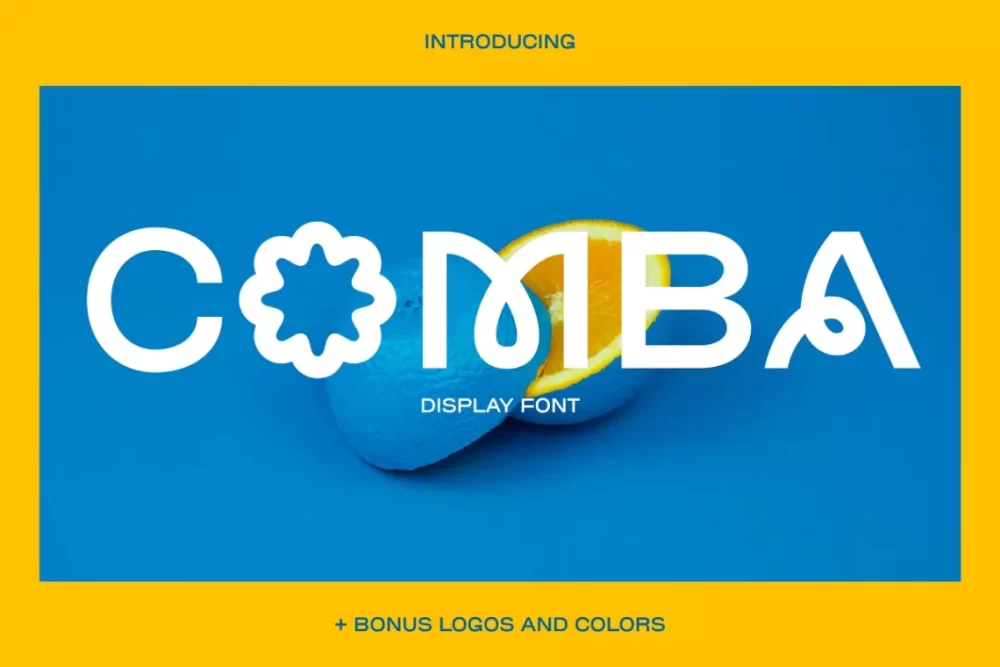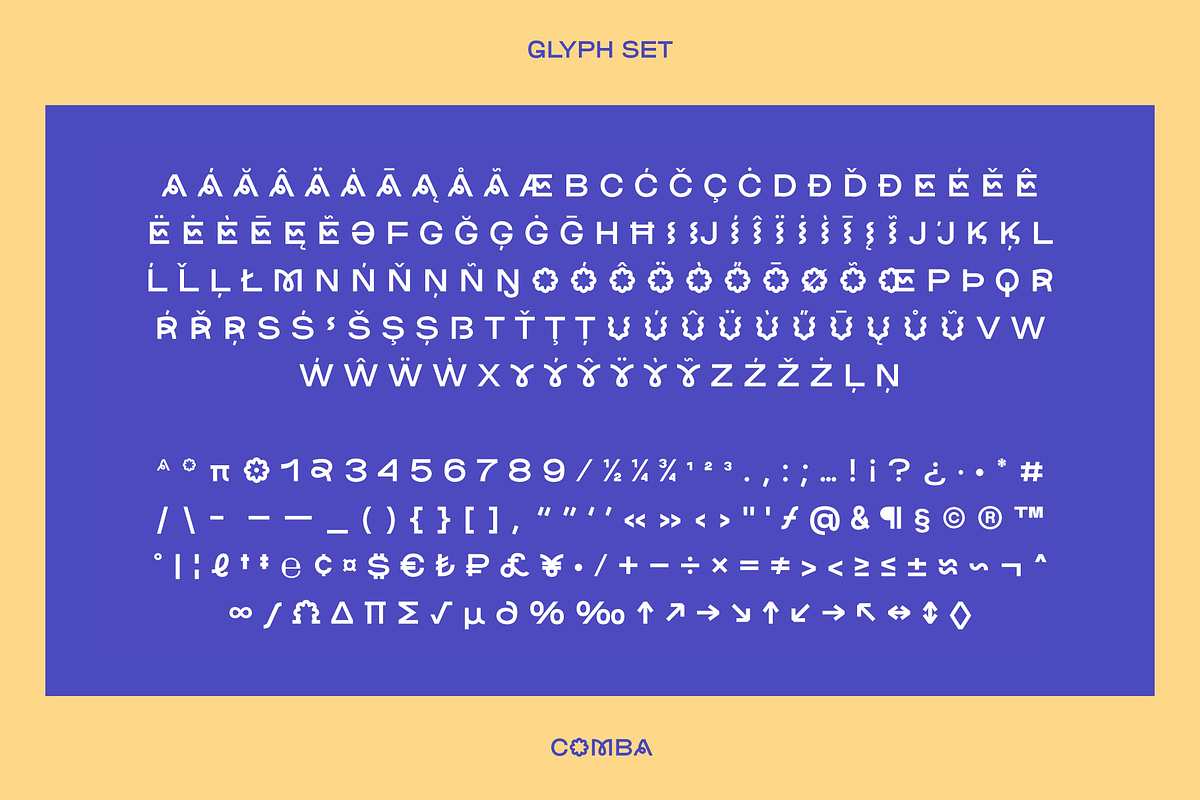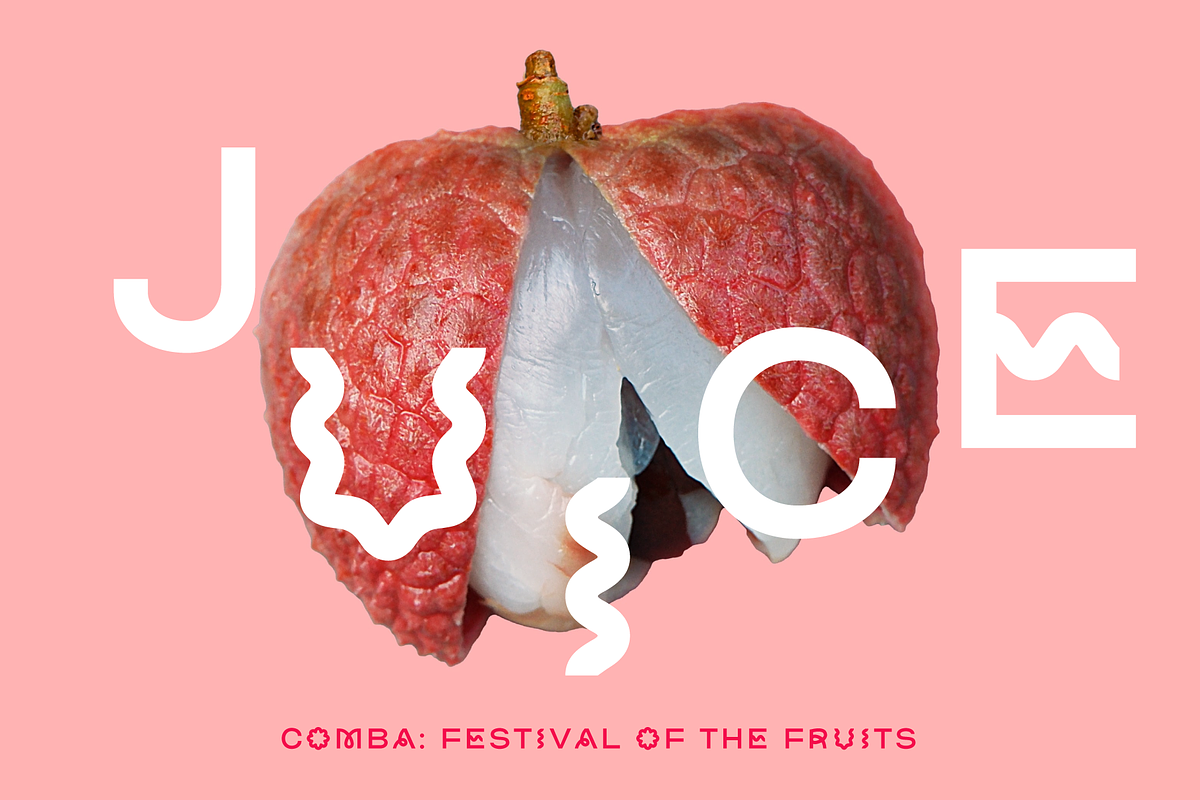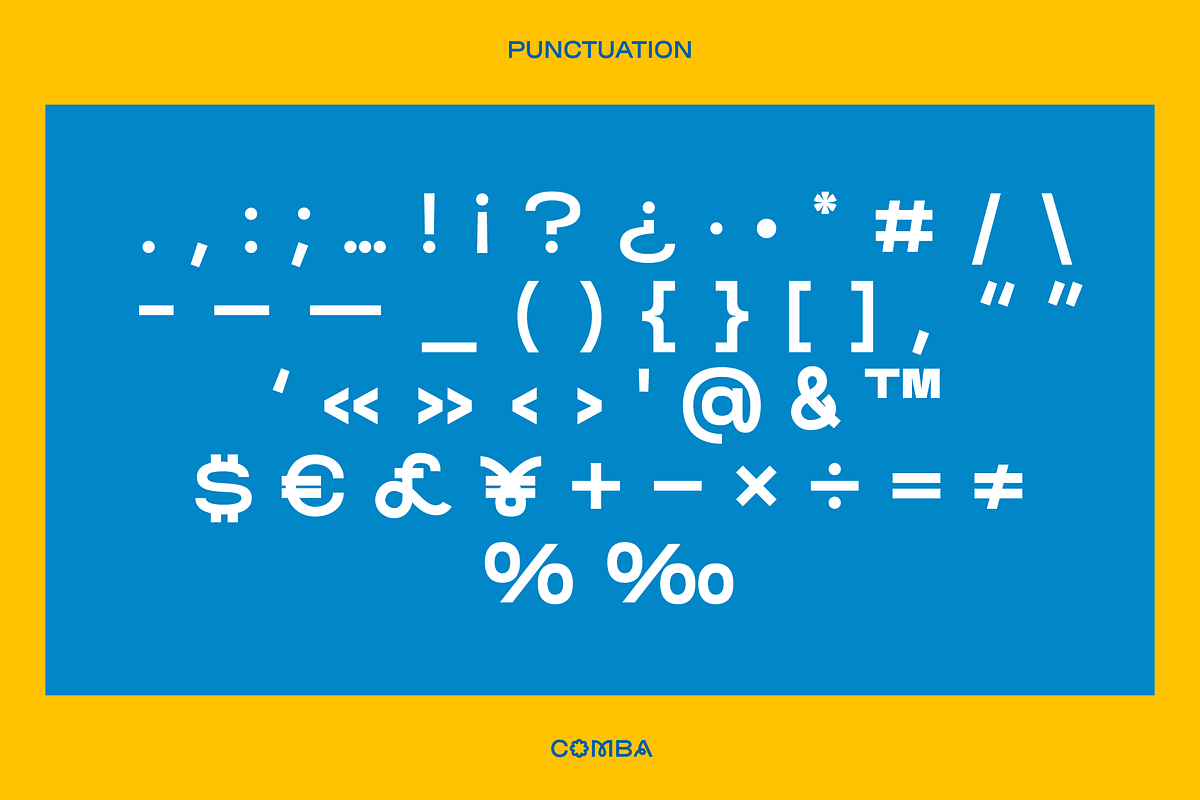
COMBA is a quirky all caps display font that is perfect for display type and contemporary branding. It has just enough eye-catching letters to pull the reader in and make them smile. COMBA also comes with 5 logo templates and a color palette.
- All caps
- Numbers
- Punctuation
- Arrows